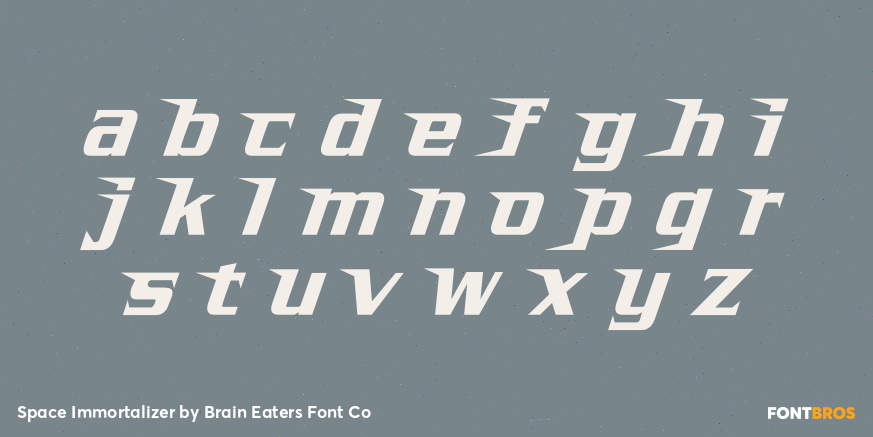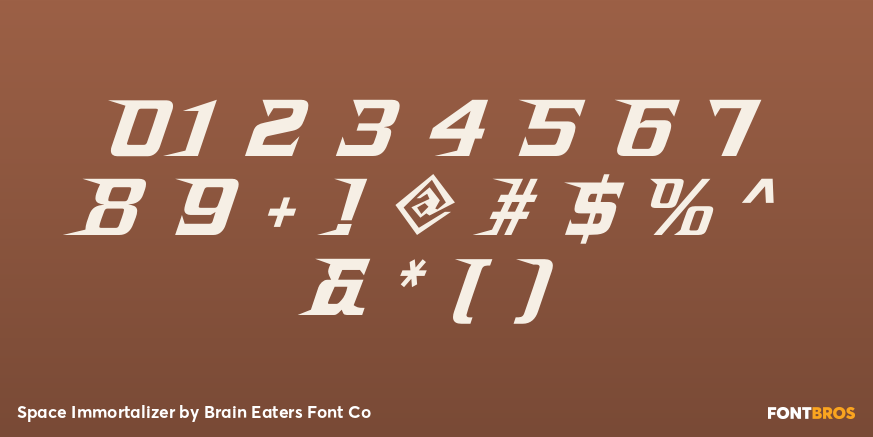
Space Immortalizer
Font Family by Brain Eaters Font Co
If you were forced to make a mix tape of two ALL TIME CLASSIC movies from the 1970's namely Laser Blast and Star Crash.